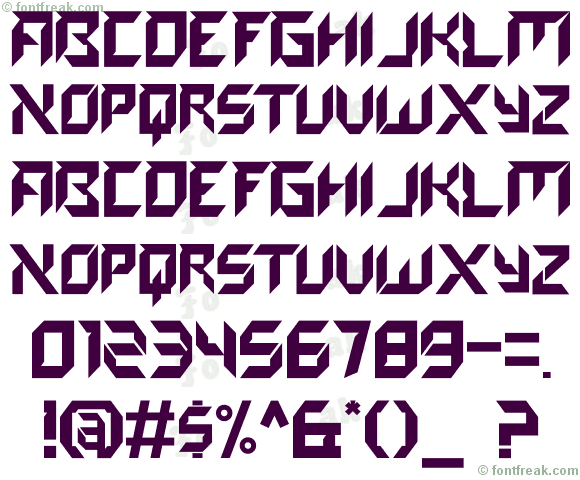
Andromeda
About Andromeda
The Andromeda font by MaknaStudio is a striking display typeface that combines modern aesthetics with a touch of futurism. Its unique geometric forms and angular lines create a bold visual impact, making it an ideal choice for a variety of design projects. The character set features a consistent stroke weight with sharp contrasts, giving the font a dynamic presence that captures attention. The spacing is thoughtfully designed to enhance readability while maintaining a visually appealing structure, making it suitable for both headlines and branding applications.
Andromeda is perfect for a range of creative uses. It shines in movie posters, where its dramatic style can evoke excitement and intrigue. Additionally, it's a wonderful choice for concert promotions, adding a contemporary edge that resonates with music enthusiasts. The font also works well for tech-related ventures, providing a modern touch for websites and promotional materials. For small business owners, using Andromeda in branding can help create a memorable identity that stands out in competitive markets.
What sets the Andromeda font apart is its ability to merge artistic creativity with functionality. Its bold, geometric design not only makes a statement but also maintains versatility across various applications. Whether used in digital or print media, Andromeda ensures that your designs are both innovative and visually captivating, making it a must-have addition to any designer's toolkit.